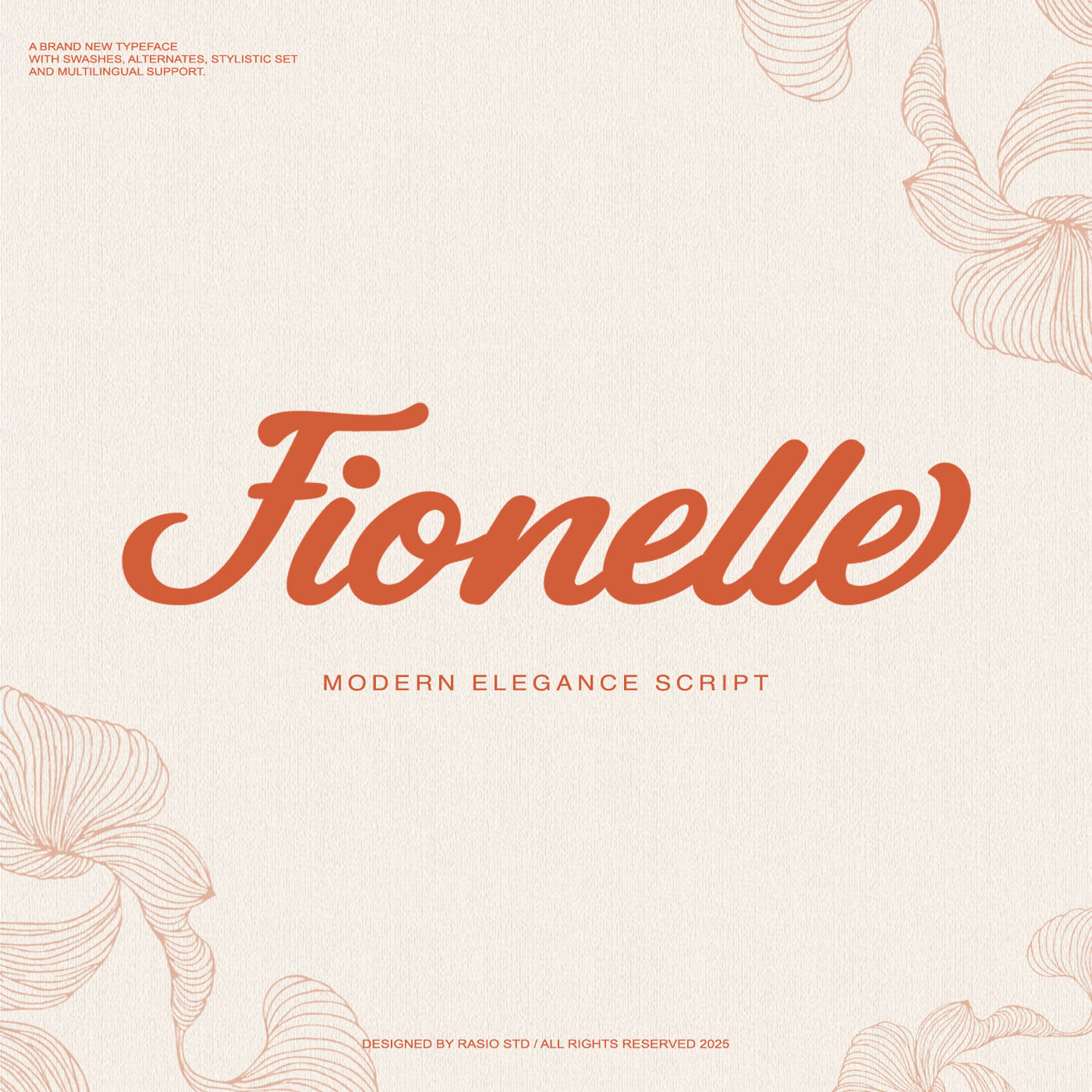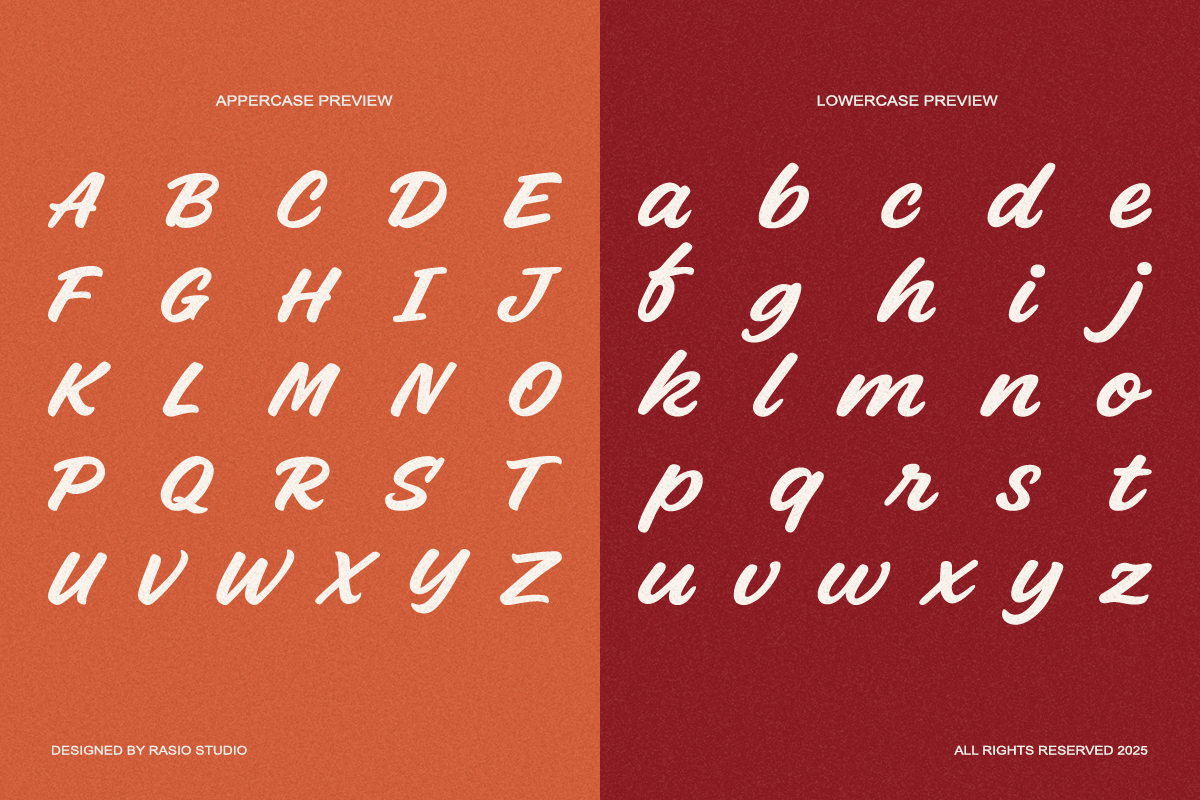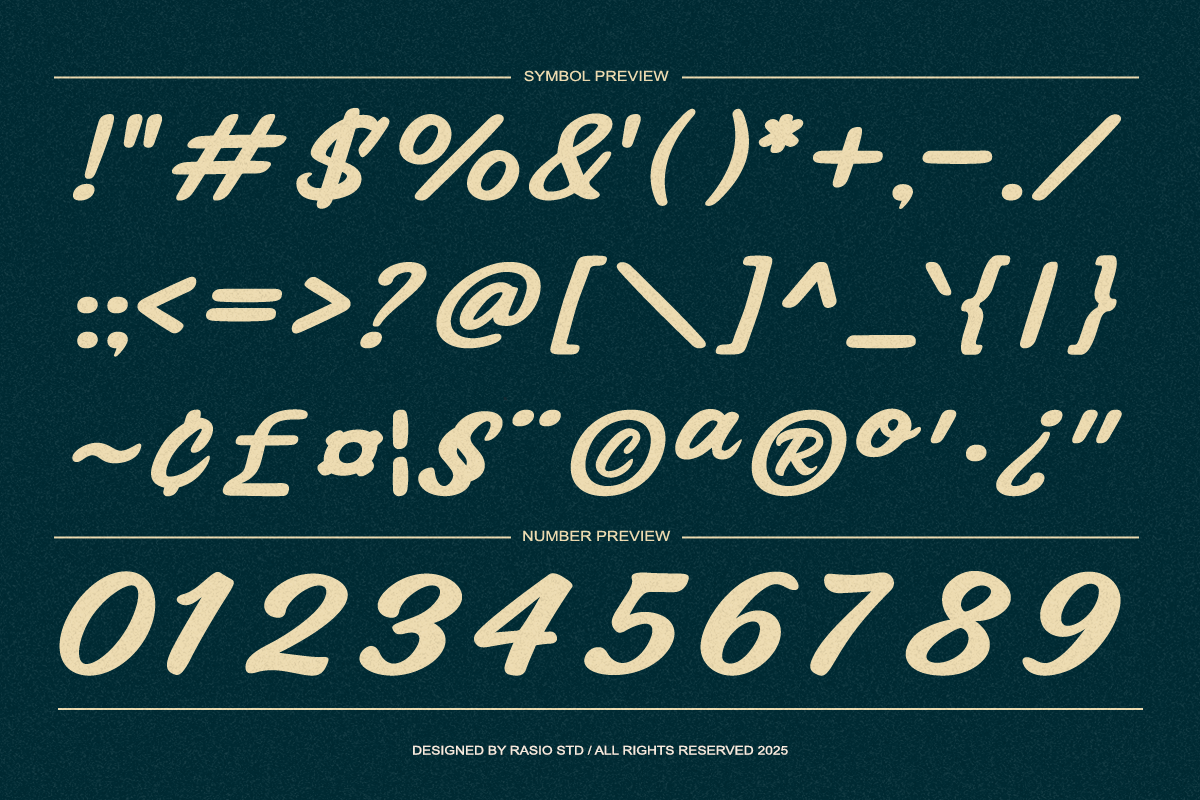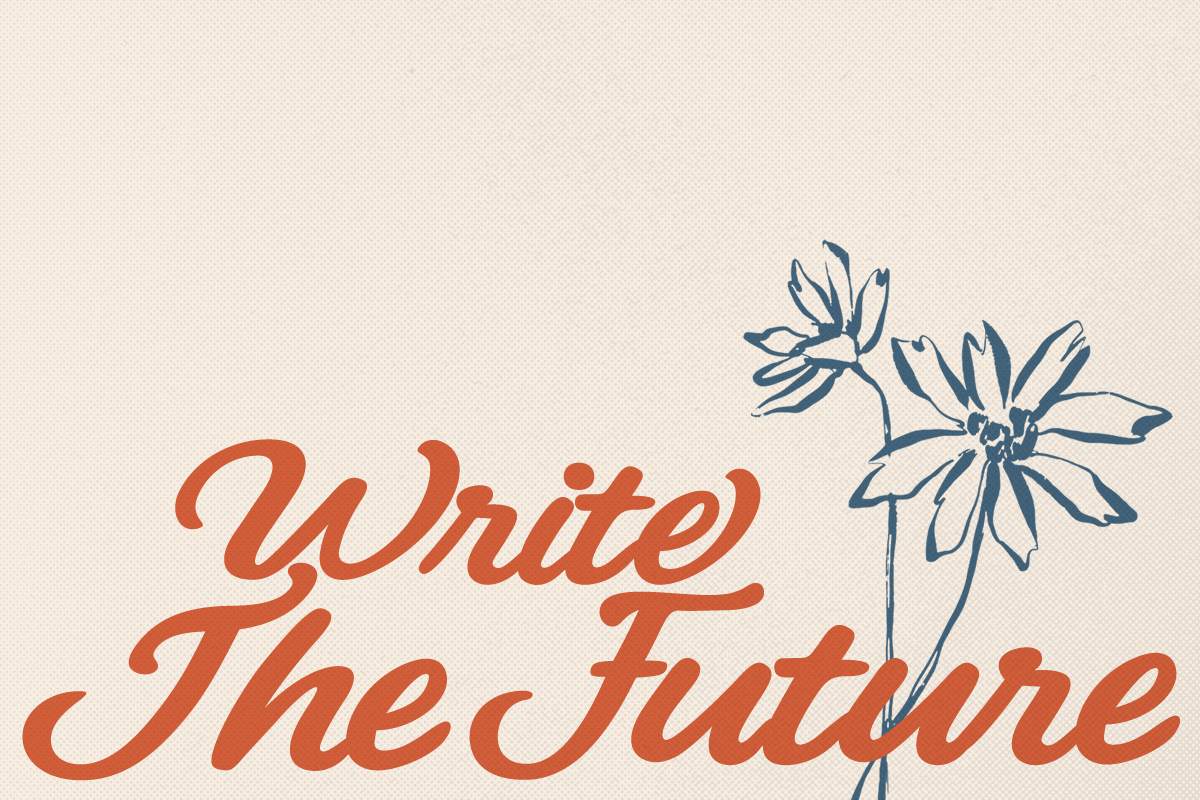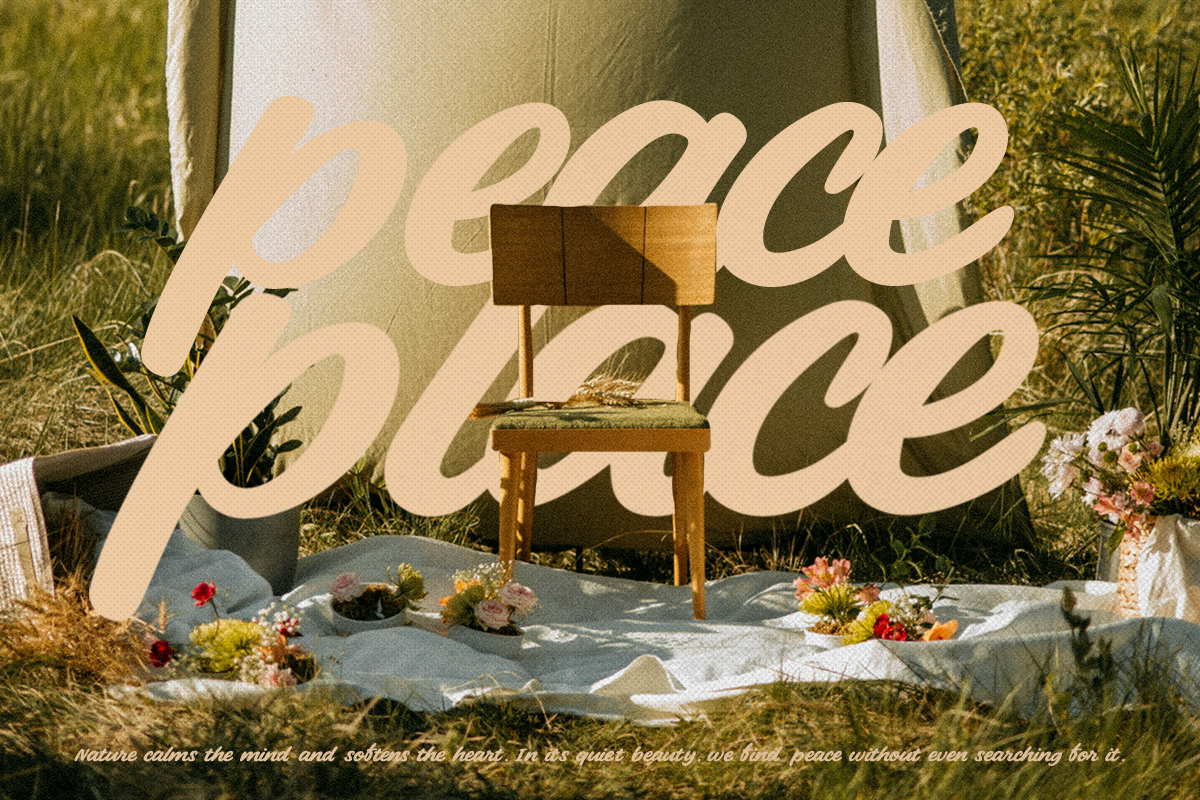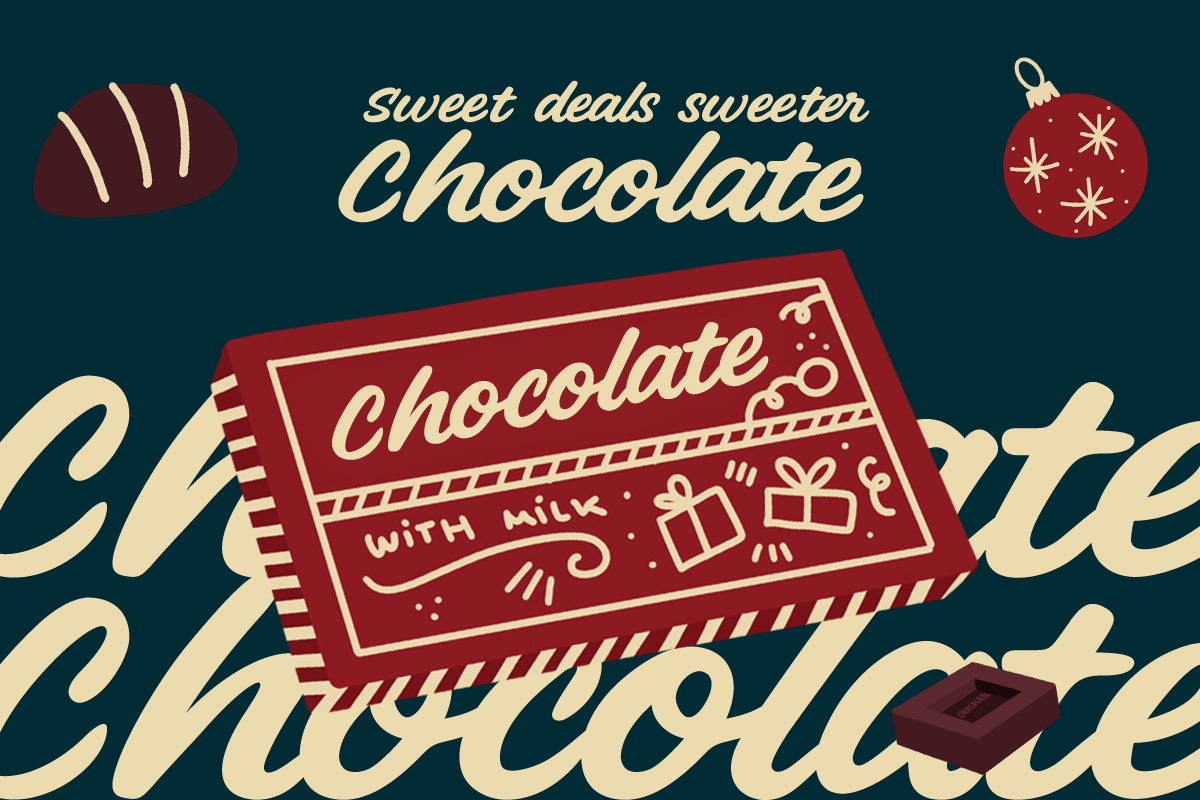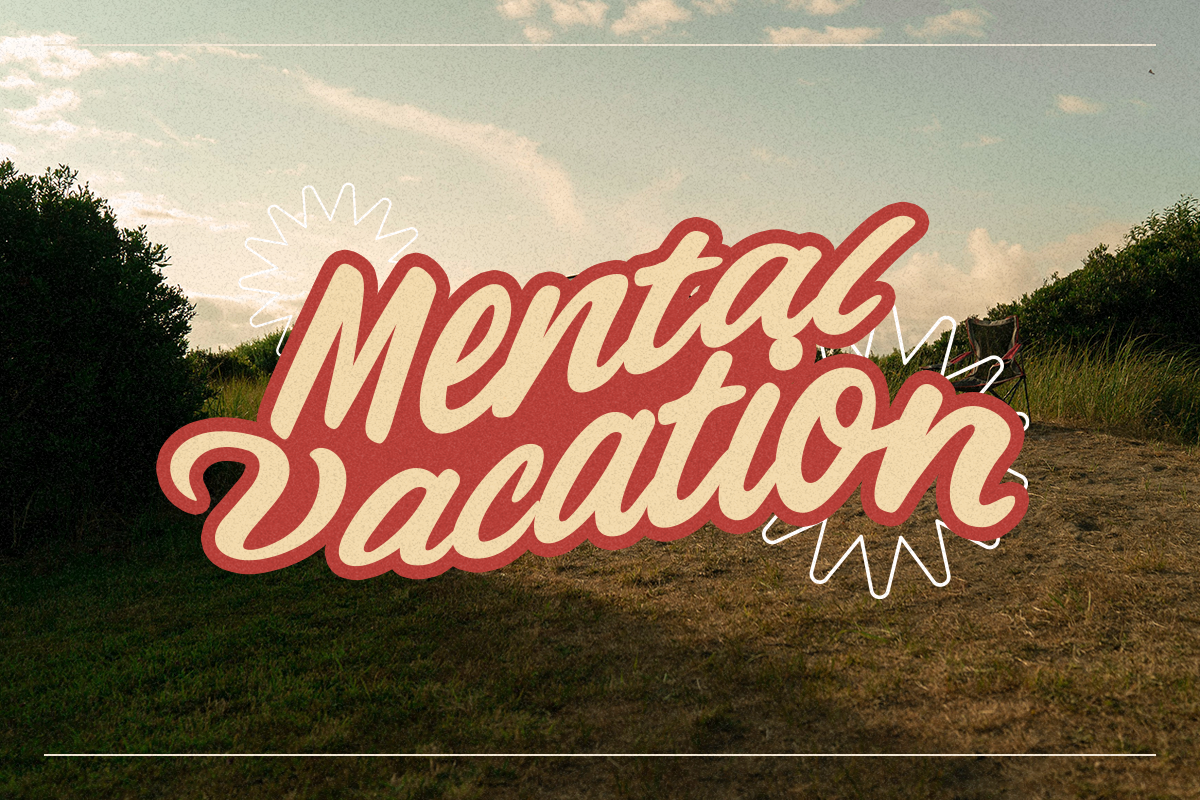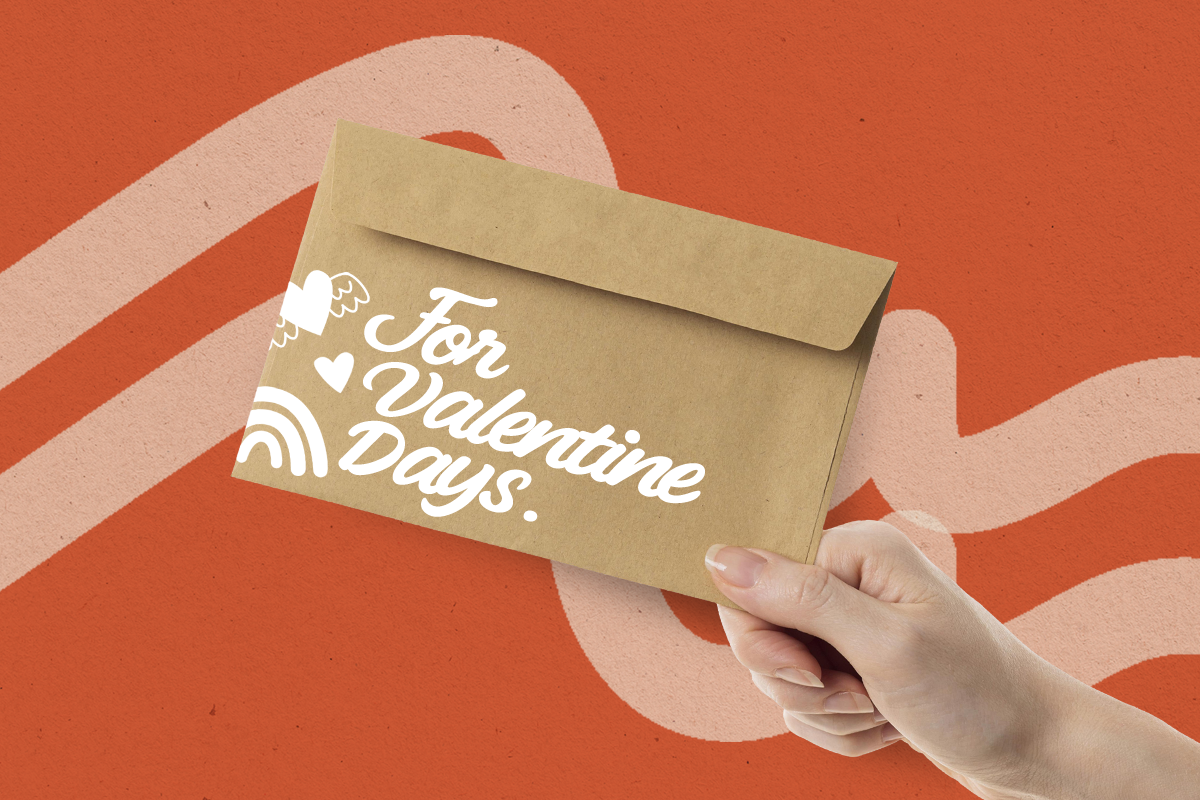
Fionelle Modern Elegance Font
Fionelle Modern Script Font is a smooth, elegant, and contemporary typeface that captures the grace of modern handwriting. Designed by Rasio Studio, it combines flowing curves with confident strokes, delivering a stylish and timeless aesthetic. Perfect for branding, invitations, and editorial headlines, Fionelle adds a natural handwritten charm with professional refinement. Its sleek ligatures, alternate characters, and swashes create versatile compositions, ideal for projects that require both sophistication and warmth. Whether in logos or social media graphics, Fionelle maintains legibility while expressing elegance and creativity.
Relevance and Use Cases is perfect for logo design, wedding invitations, personal branding, social media quotes, editorial headlines, posters, and beauty industry visuals that seek a handwritten touch of sophistication.
Numerals & Punctuation
Swashes & Stylistic Alternates
Fionelle Modern Elegance Font is a script typeface by Rasio Studio featuring uppercase and lowercase letters, numerals, punctuation, swashes, and stylistic alternates. It is available in TTF, OTF, and WOFF formats with multilingual support.